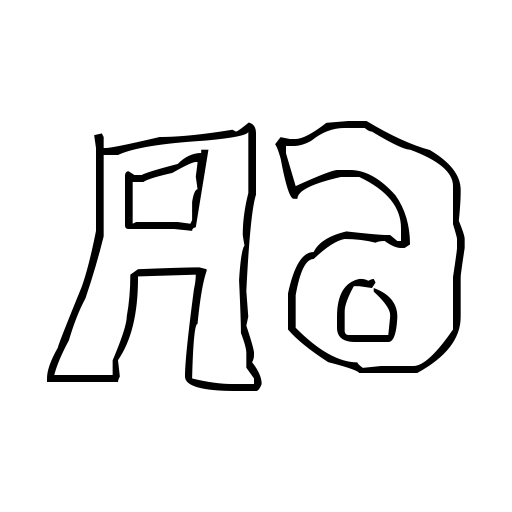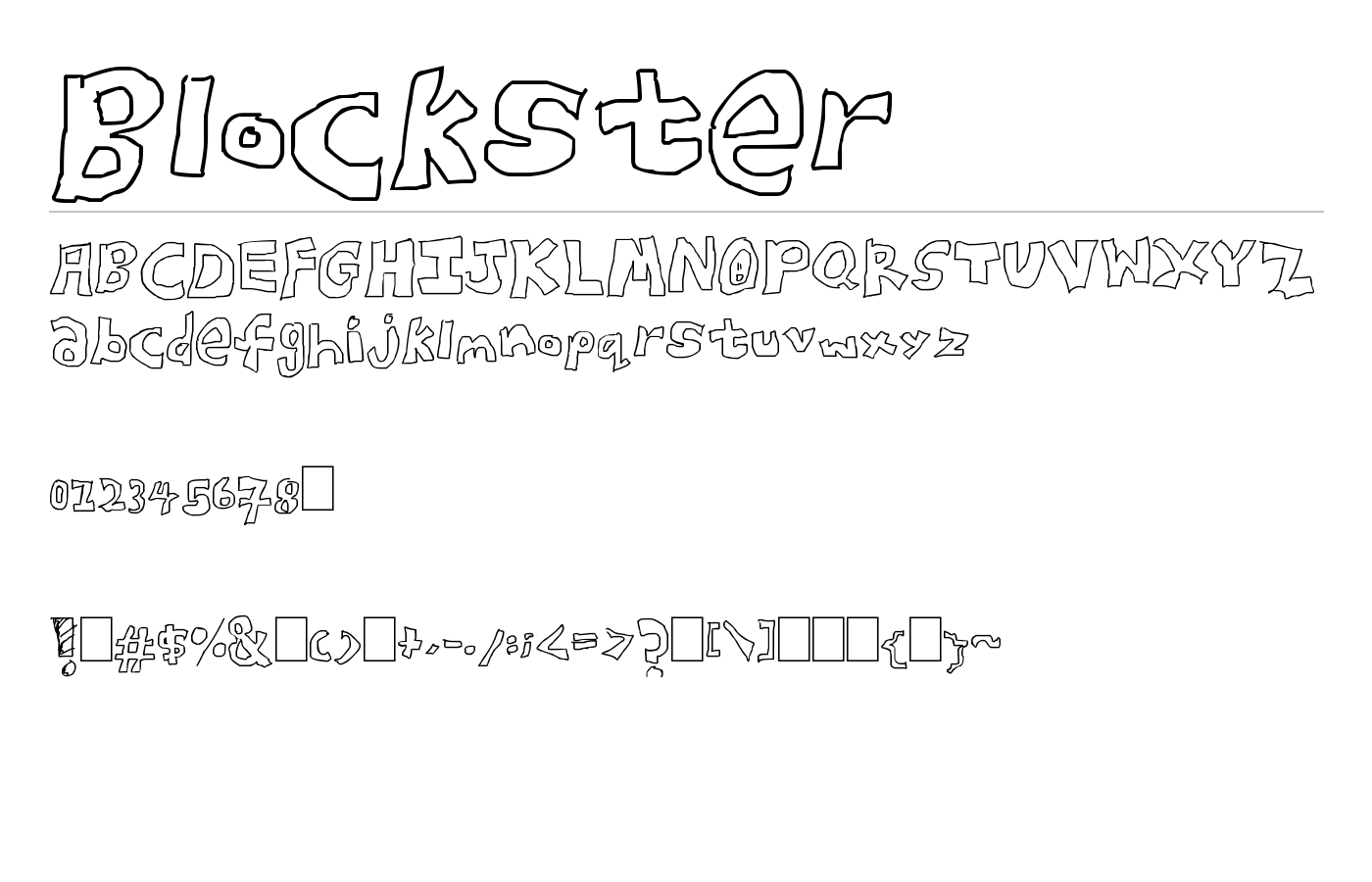
Blockster is a playful and quirky sans serif font with an irregular, hand-drawn style that adds a fun, informal touch to any design. Its uneven, blocky letterforms and light weight make it ideal for creative projects, children’s materials, and casual branding where a lively and approachable personality is desired. This font works well in headlines, logos, or posters that aim to convey whimsy and individuality.
Blockster Font